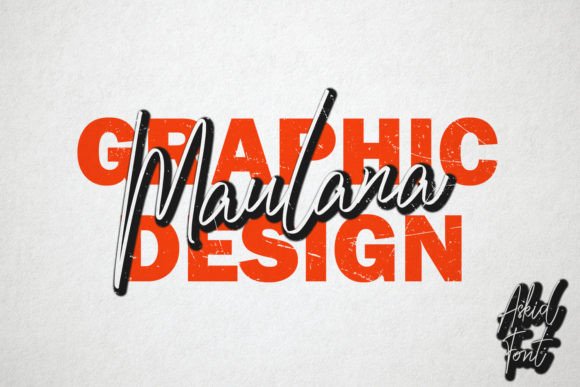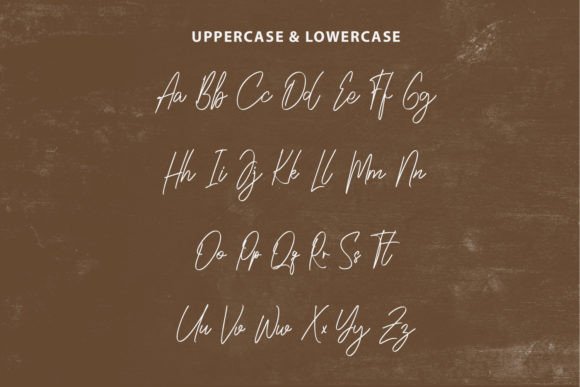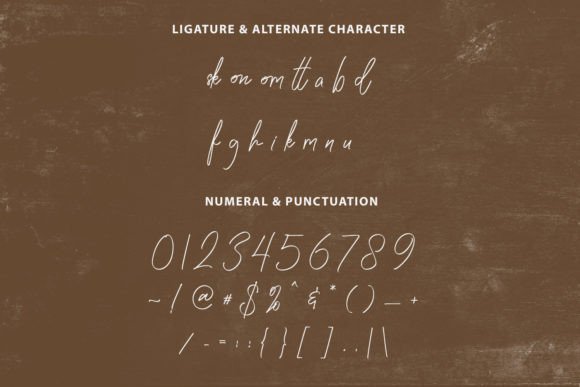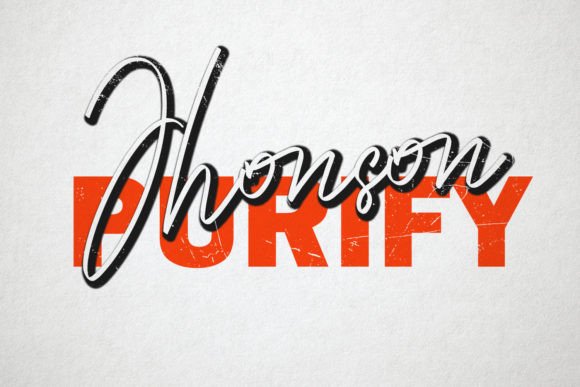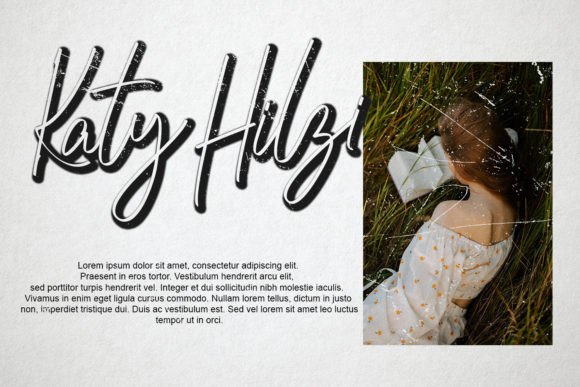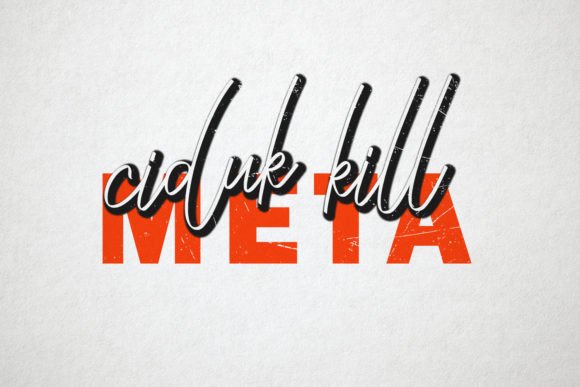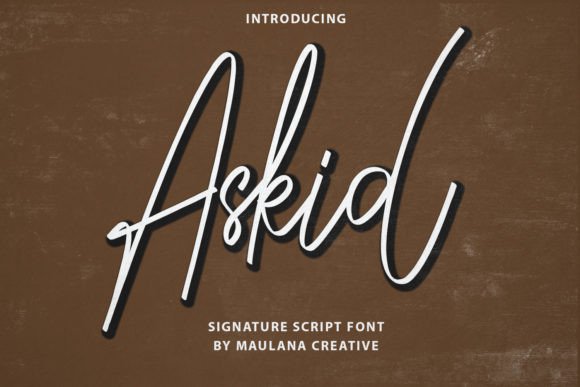
Introducing Askid Font: The Ultimate Signature Script Font for Designers and Crafters
Are you tired of using the same old fonts for your designs? Look no further! Askid Font is here to revolutionize your creative projects with its stunning signature script font. In this article, we’ll dive into the world of Askid Font, exploring its features, uses, and benefits for designers and crafters.
What is Askid Font?
Askid Font is a beautiful signature script font designed to add a touch of elegance and sophistication to your designs. Its unique and flowing script style makes it perfect for a wide range of applications, from logo design to social media graphics, movie titles, book titles, and more.
Key Features of Askid Font
• Unique Script Style: Askid Font boasts a distinctive script style that sets it apart from other fonts. Its elegant and cursive design makes it perfect for creating stunning visual effects.
• Versatile: This font is suitable for various design projects, including logo design, social media graphics, movie titles, book titles, and more.
• Easy to Read: Despite its script style, Askid Font is easy to read, making it perfect for both short and long text.
• Signature or Script Typeface: Askid Font is ideal for designs that require a signature or script typeface, adding a personal touch to your creations.
Uses of Askid Font
Askid Font is an incredibly versatile font that can be used in a variety of design projects, including:
• Logo Design: Create a stunning logo for your brand with Askid Font, making it stand out from the competition.
• Social Media Graphics: Use Askid Font to create engaging social media graphics, such as Facebook posts, Instagram stories, and Twitter headers.
• Movie Titles: Add a touch of glamour to your movie titles with Askid Font, making them look like blockbuster hits.
• Book Titles: Create eye-catching book titles with Askid Font, perfect for book covers, e-books, and more.
• Long Text: Use Askid Font for long text, such as articles, blog posts, and website content, to add a touch of elegance and sophistication.
Benefits of Using Askid Font
By using Askid Font, designers and crafters can benefit in several ways:
• Stand Out from the Crowd: Askid Font’s unique script style helps you stand out from the competition, making your designs more noticeable and memorable.
• Easy to Use: This font is easy to use and integrate into your designs, saving you time and effort.
• High-Quality: Askid Font is a high-quality font, ensuring that your designs look professional and polished.
• Perfect for Secondary Text: Use Askid Font as a secondary text font to add a touch of elegance and sophistication to your designs.
Tips for Using Askid Font
To get the most out of Askid Font, here are some tips to keep in mind:
• Pair it with Other Fonts: Pair Askid Font with other fonts to create a stunning visual effect.
• Experiment with Colors: Experiment with different colors to find the perfect match for your design.
• Use it for Headings: Use Askid Font for headings and titles to add a touch of elegance and sophistication.
In conclusion, Askid Font is an incredible signature script font that can elevate your designs to the next level. Its unique script style, versatility, and ease of use make it perfect for a wide range of design projects. Whether you’re a designer or crafter, Askid Font is a must-have font in your collection. So, what are you waiting for? Get creative with Askid Font and make stunning works of art!